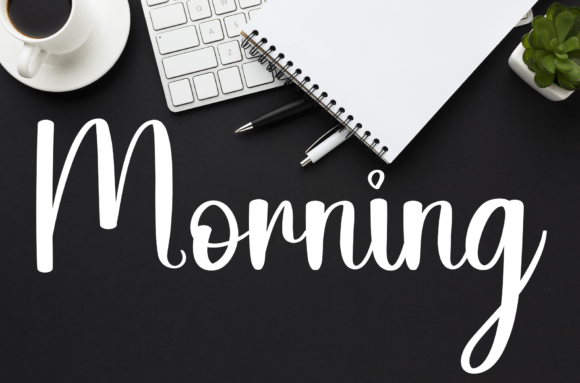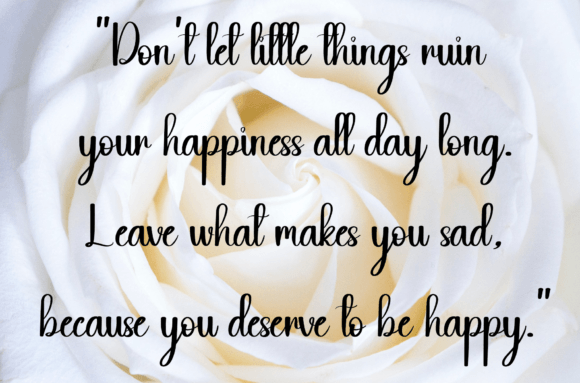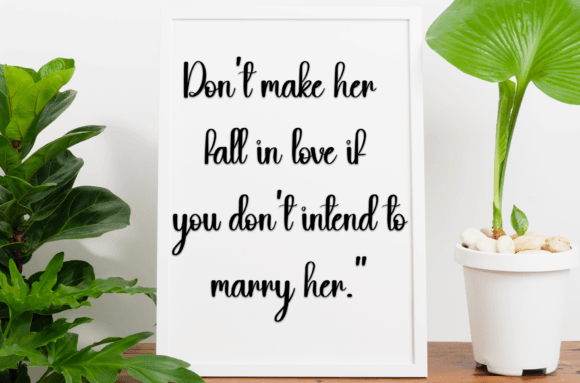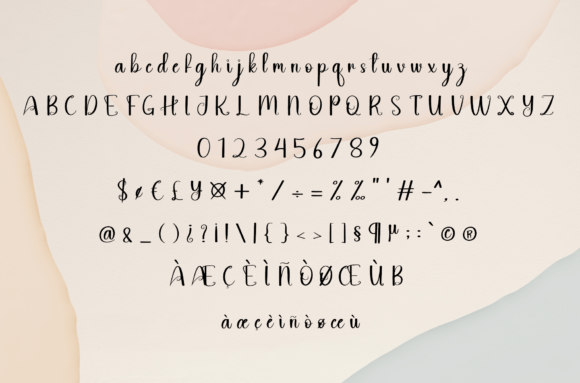
Writing Font
What Is Writing Font?
Writing is a sweet and friendly handwritten font designed to bring a warm, personal feel to your designs. Its smooth curves and charming style make any project feel joyful and inviting. If you want your words to look approachable and fun, Writing is an excellent choice.
From the first glance, it will turn ordinary text into something eye-catching and memorable.
Writing is a versatile font that fits a wide range of creative projects. For example, it works perfectly on wedding invitations. Whether you’re designing something modern, classic, or rustic, this font adds a soft, heartfelt touch.
It’s also ideal for greeting cards. When you want to share sincere messages or warm wishes, Writing helps you say it beautifully.
For social media graphics, Writing stands out with its cute and playful vibe. Whether you’re posting quotes, sharing event details, or promoting products, this font makes your content more engaging and personal.
It’s also great for product packaging, labels, and logos. Its friendly style makes any brand look more approachable and unique. Whether you’re designing for small businesses, handmade goods, or special occasions, Writing adapts easily to any theme.
Why Choose Writing Font?
There are plenty of reasons to add Writing to your font collection. First, it stays clear and easy to read at any size. Whether you use it for big titles or small captions, each letter remains crisp and balanced.
It pairs wonderfully with serif and sans-serif fonts, allowing you to create layouts that look professional and cohesive.
How Will It Improve Your Designs?
Writing adds personality, charm, and joy to any project. If you want your designs to feel friendly and inviting, this font makes it easy.
Even simple layouts look more vibrant thanks to Writing’s smooth, flowing strokes. Whether you’re designing invitations, labels, or social media posts, your work will stand out and leave a lasting impression.
A high-quality handwritten font also shows your attention to detail, helping you build trust and connection with your audience.
Writing is more than just a font—it’s a creative tool that brings happiness and style to your projects. From wedding invitations and greeting cards to branding and packaging, it adds a sweet, personal touch that makes every design shine.